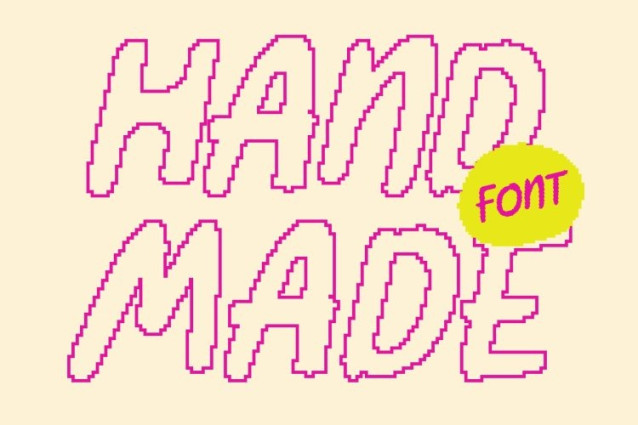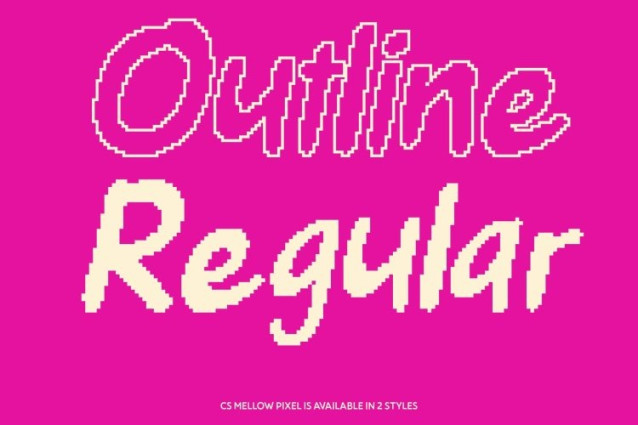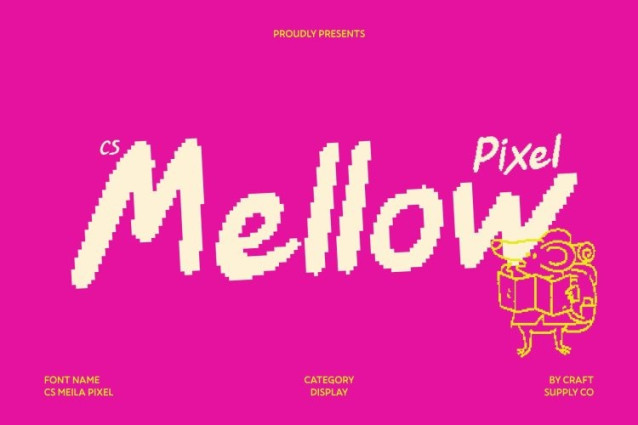
CS Mellow Pixel Font
CS Mellow Pixel Font This is a modern display font that blends clean handwritten forms with funky, pixel-inspired detailing. Its fluid and expressive letterforms radiate friendliness and joy, while subtle pixel structure adds a fresh digital vibe. The organic flow captures spontaneity and fun, making every design feel lively and full of personality.
Handwritten Warmth Meets Modern Pixel Precision
Each stroke is designed to feel natural and approachable, enhanced by pixel accents that bring clarity and contemporary structure. This balance between casual handwritten charm and digital precision ensures excellent readability while keeping the look playful and modern.
Perfect for Joyful, Youthful, and Creative Projects
Ideal for posters, packaging, playful branding, social media graphics, and digital content, this font shines in projects that celebrate warmth, creativity, and positive energy. Its funky personality makes it especially appealing to youthful and fun-loving audiences.
Versatile for Fun and Vibrant Visual Expressions
Whether used as bold headlines, quirky logos, or expressive accents, this font adapts easily across creative layouts. Its playful digital character helps designs stand out while maintaining a polished, modern feel.